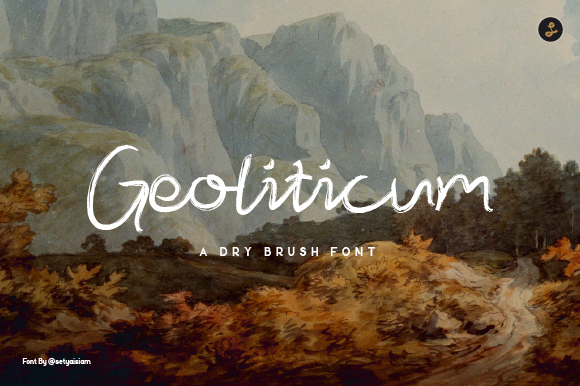
Meet Geoliticum, the captivating script font that breathes life into your creative endeavors. Designed by the talented setyaisiam, this font is a symphony of casual elegance and playful charm, adding a touch of magic to your designs.
Crafted with meticulous attention to detail, Geoliticum boasts a unique handwritten style reminiscent of strokes of a brush pen. Its clean lines carry a hint of whimsy, making it the perfect choice for logos, branding, social media, and DIY projects.
Geoliticum's versatility knows no bounds. It dances gracefully across packaging, adding a touch of sophistication to your products. Its playful nature shines in invitations and greeting cards, spreading joy and warmth. Geoliticum transforms ordinary text into captivating headlines, grabbing attention and leaving a lasting impression.
With each character meticulously crafted, Geoliticum brings your words to life, infusing them with a sense of authenticity and charm. Its organic flow and subtle variations create a visual masterpiece that dances across your designs.
Embrace Geoliticum, and watch your creative visions take flight. Let its casual elegance and playful spirit elevate your projects to new heights, leaving a lasting impression on your audience. Unleash your creativity and let Geoliticum work its magic, turning your ideas into unforgettable expressions.